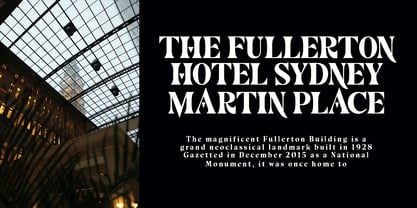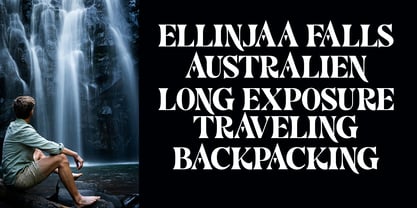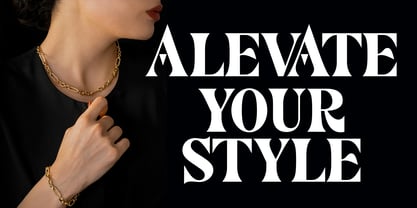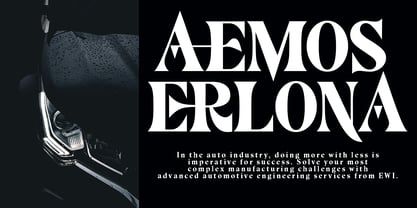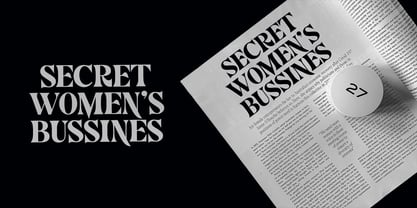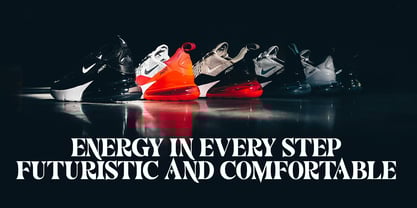
Mardon
by Aqeela Studio
The Mardon Font Family was designed by Muhammad Nasir and published by Aqeela Studio. Mardon contains 1 styles. More about this family
MARDON is a sophisticated serif font that exudes a timeless elegance. Its clean lines and balanced proportions create a sense of refinement and sophistication, while the subtle curves and delicate serifs add a touch of warmth and personality. The font's versatility makes it suitable for a wide range of applications, from elegant invitations and vintage-inspired branding to captivating book covers and timeless signage.
Designers: Muhammad Nasir
Foundry: Aqeela Studio